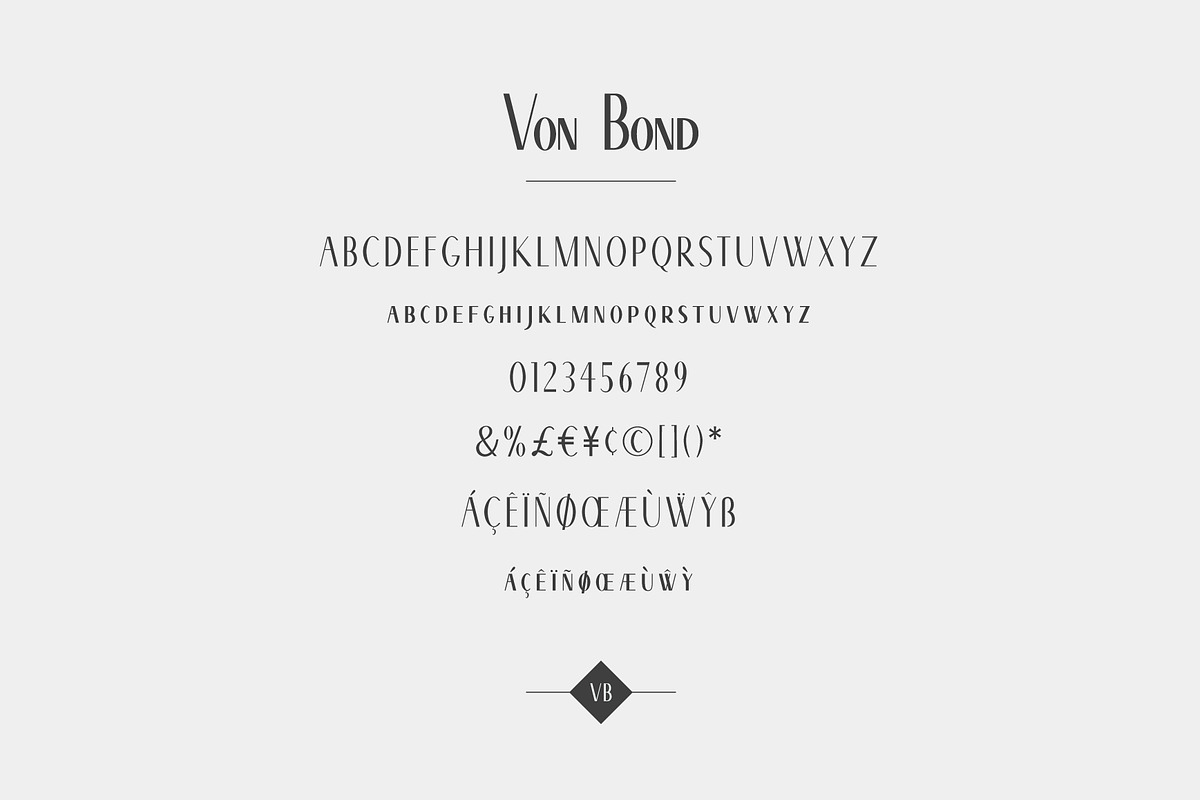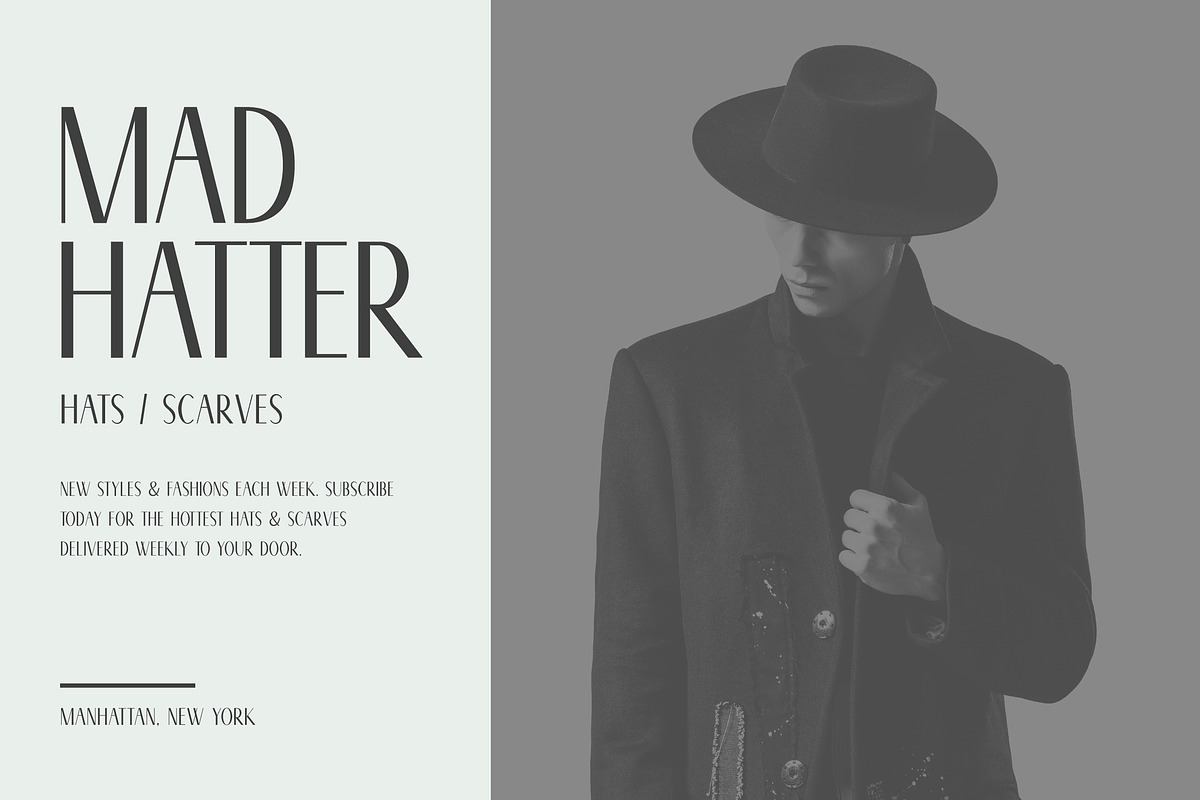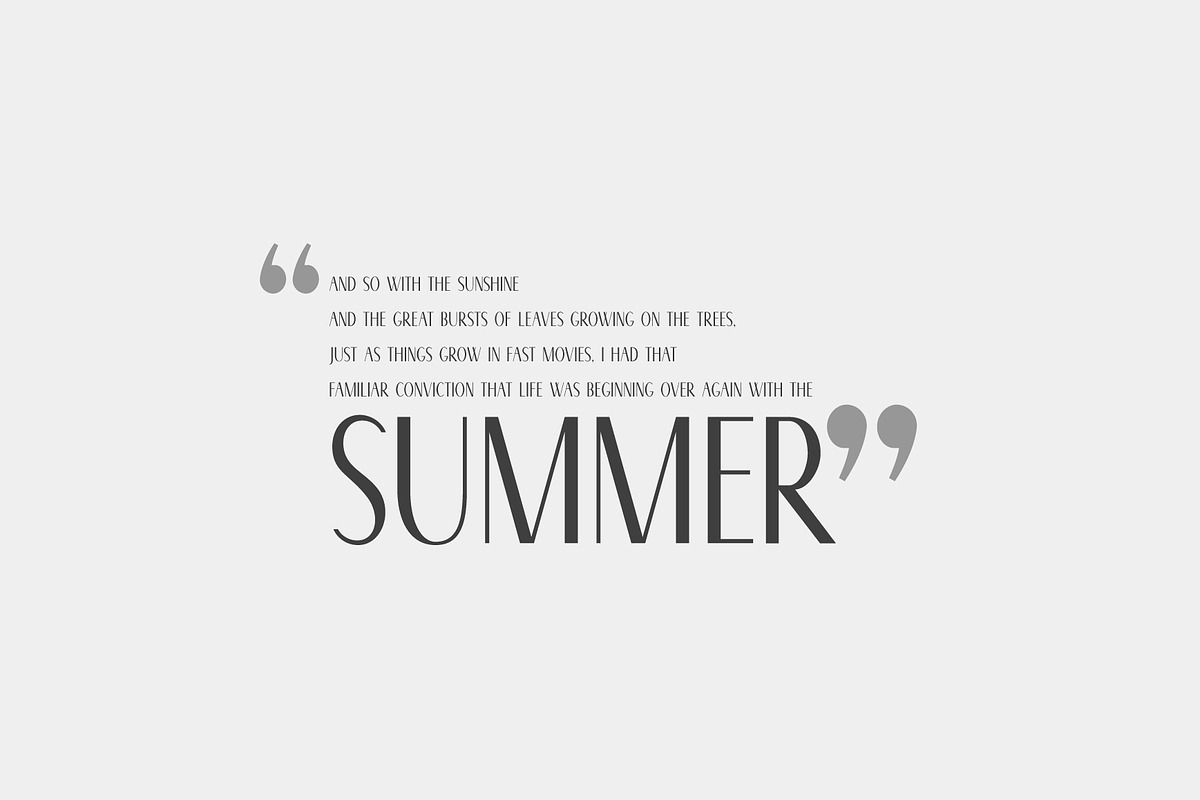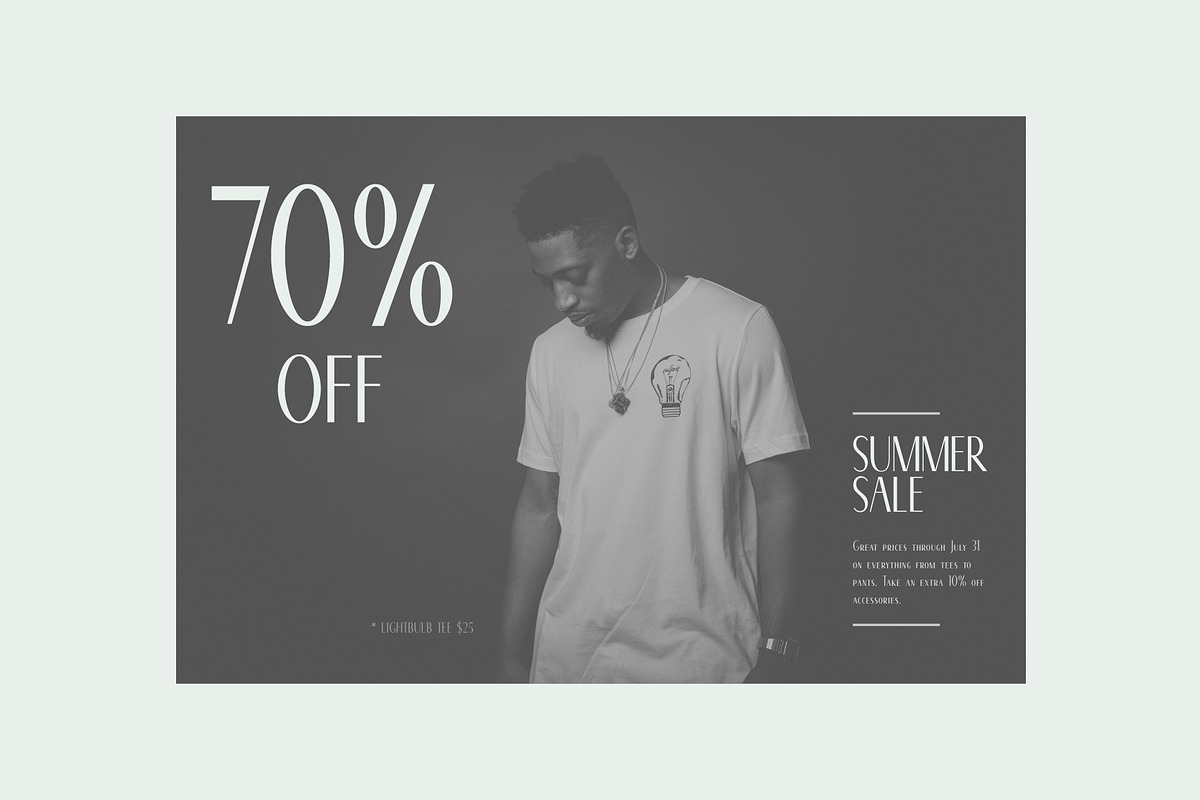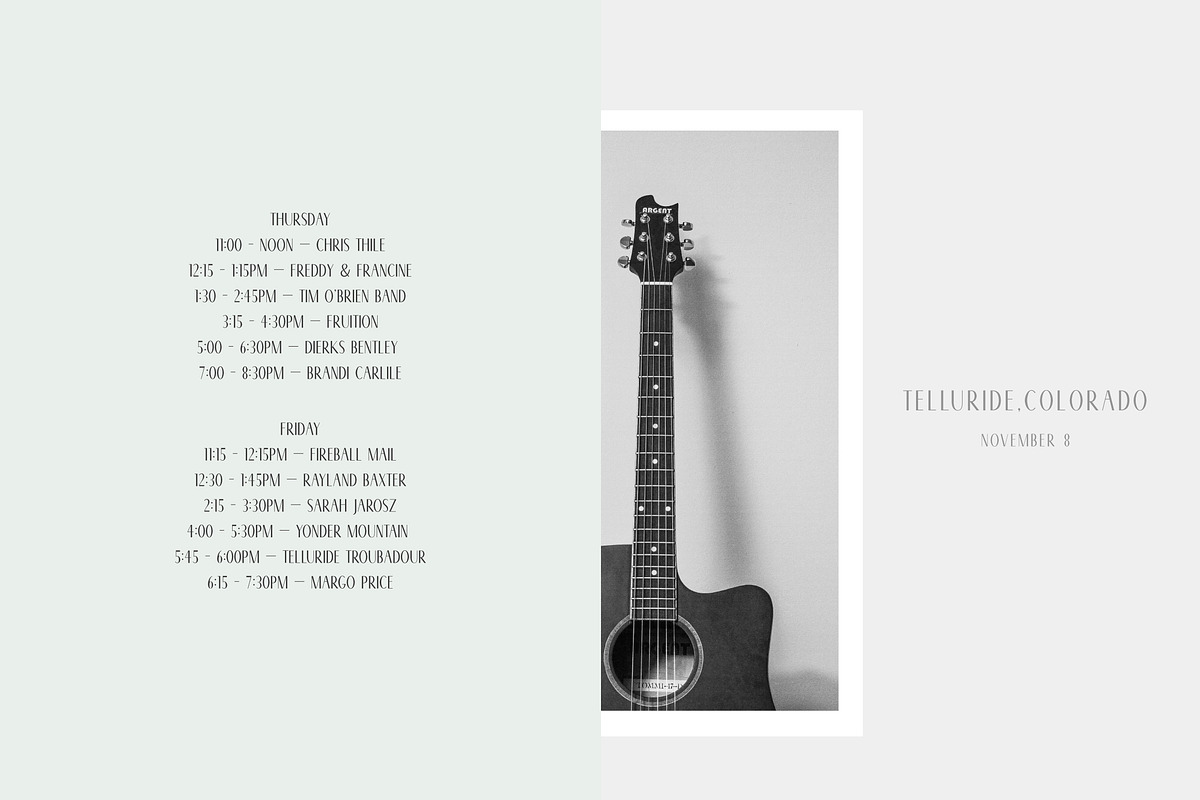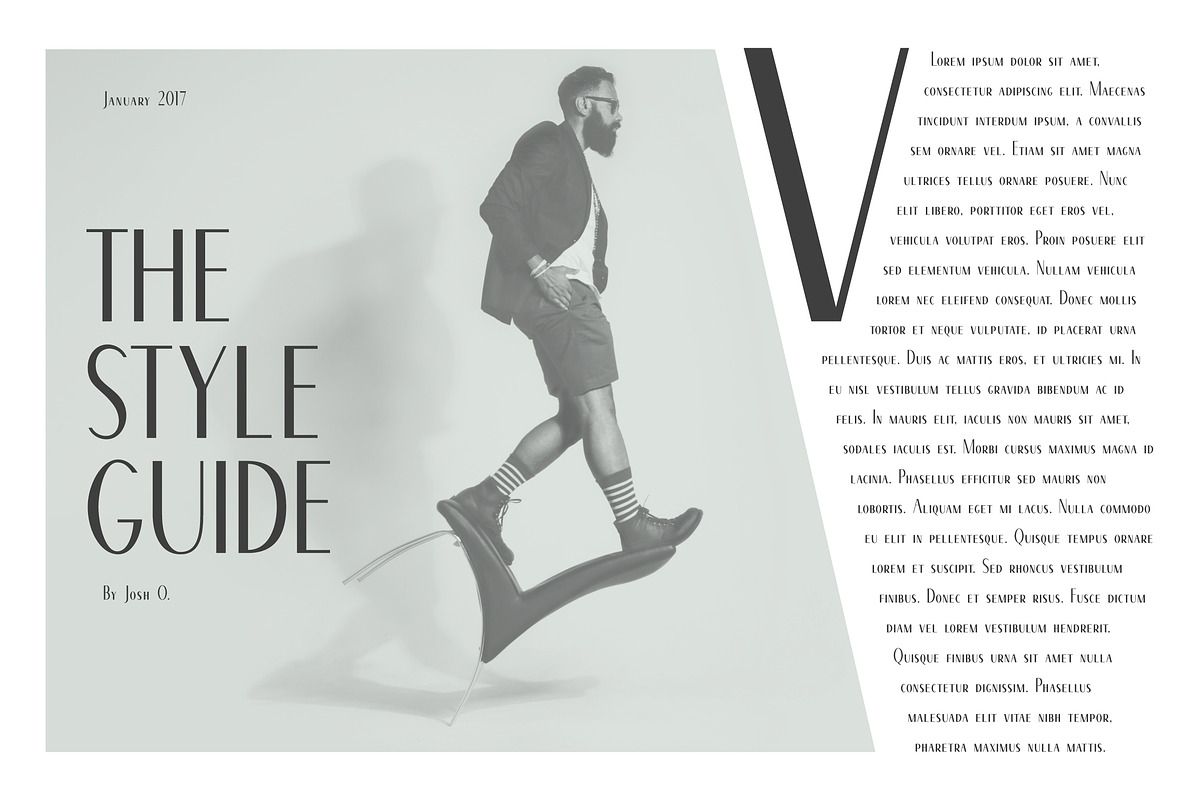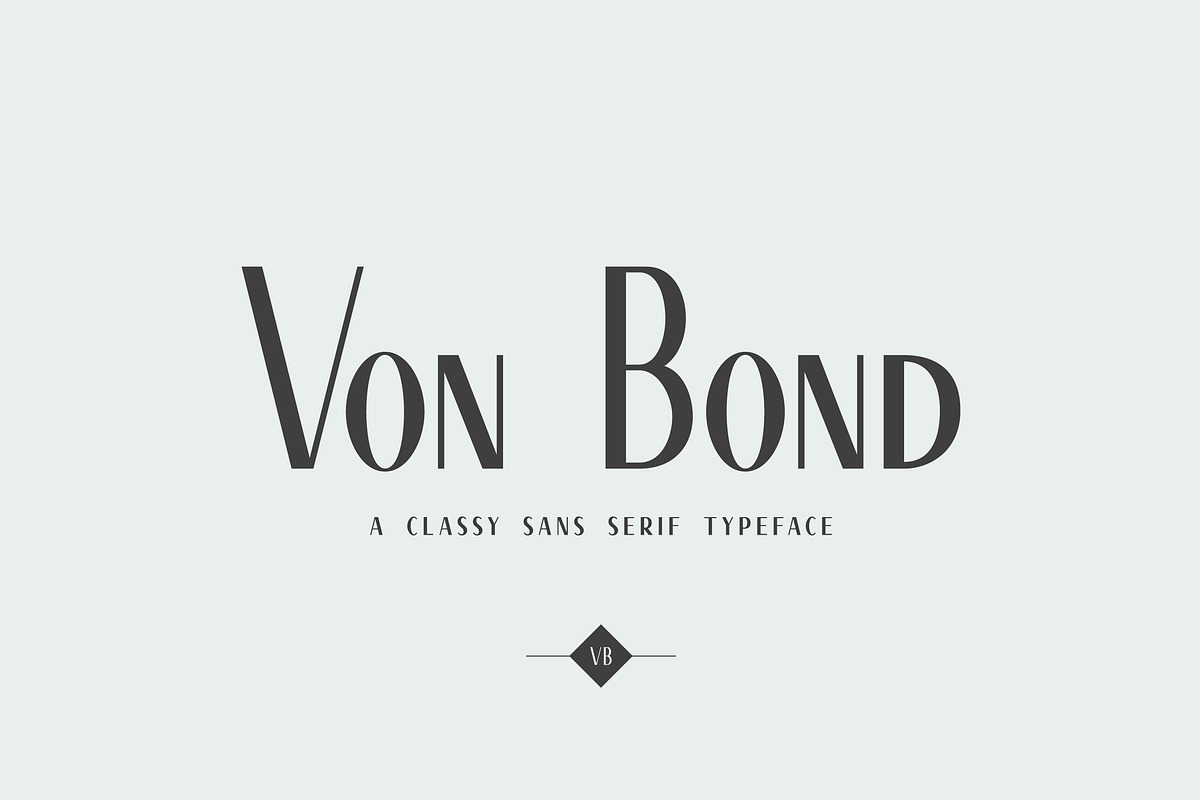
Von Bond - A Classy Sans Serif
Von Bond - A Classy Sans Serif Typeface
Von Bond is a classy sans serif typeface that's retro with a modern twist. Based on vintage serif letterforms, Von Bond captures the essence of an elegant serif with the simplicity of a sans serif. Alternating thick and thin strokes create an elegant look for your designs that can be used in graphics ranging from fashion editorials to custom invitations and social media graphics. Create gorgeous headlines with an all caps design, or mix with the lowercase small caps for a more vintage aesthetic.
Uppercase Characters
Lowercase Characters
Case-sensitive punctuation
Multilingual support for various languages including: French, German, Spanish, Portuguese, Italian, Dutch, Finnish, Swedish, and more.
Von Bond includes case-sensitive punctation for use with uppercase characters. Simply open your characters panel, click the toolbar, and select "All Caps" to apply to a selection of text, or just find the punctuation you need directly in the Glyphs panel.